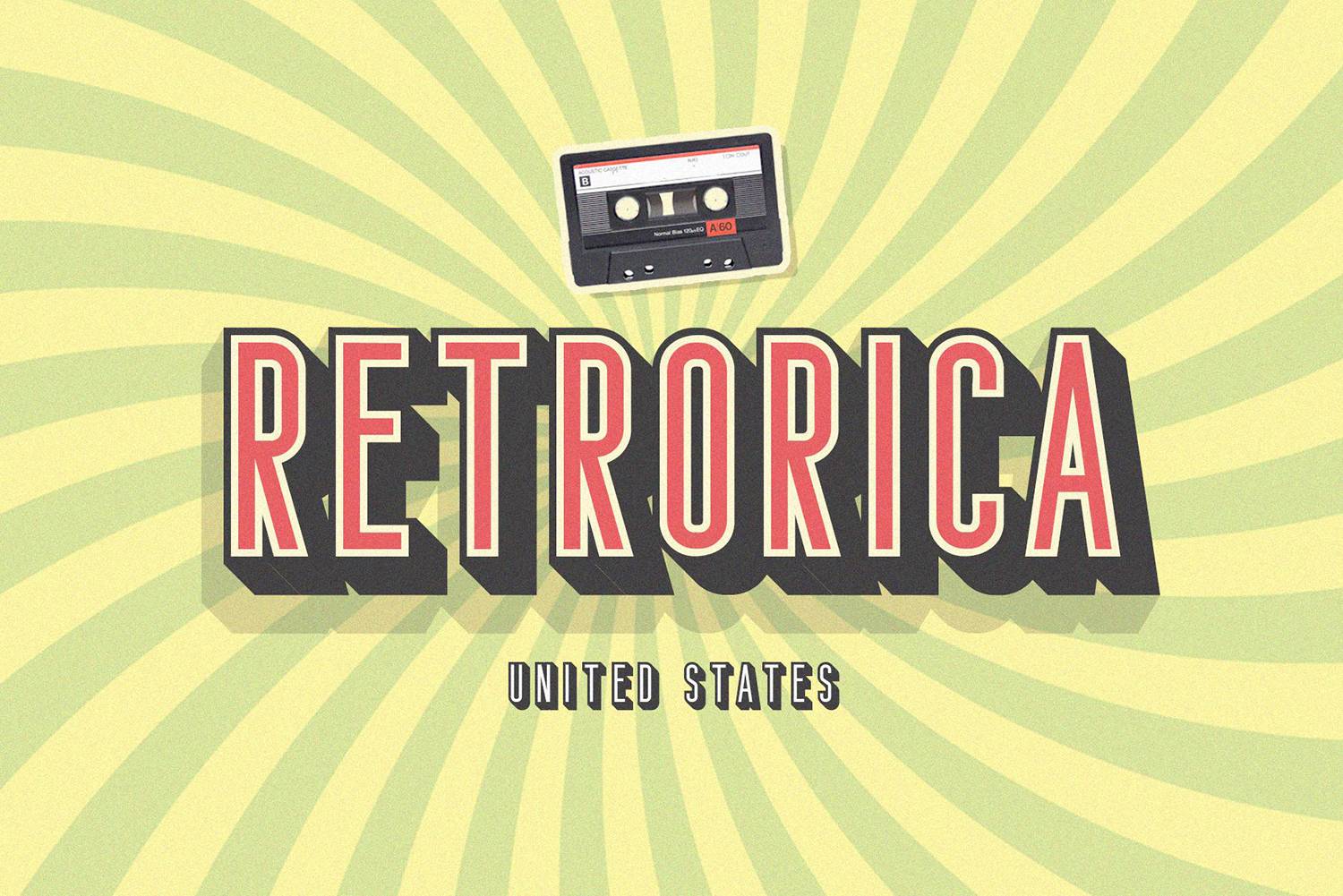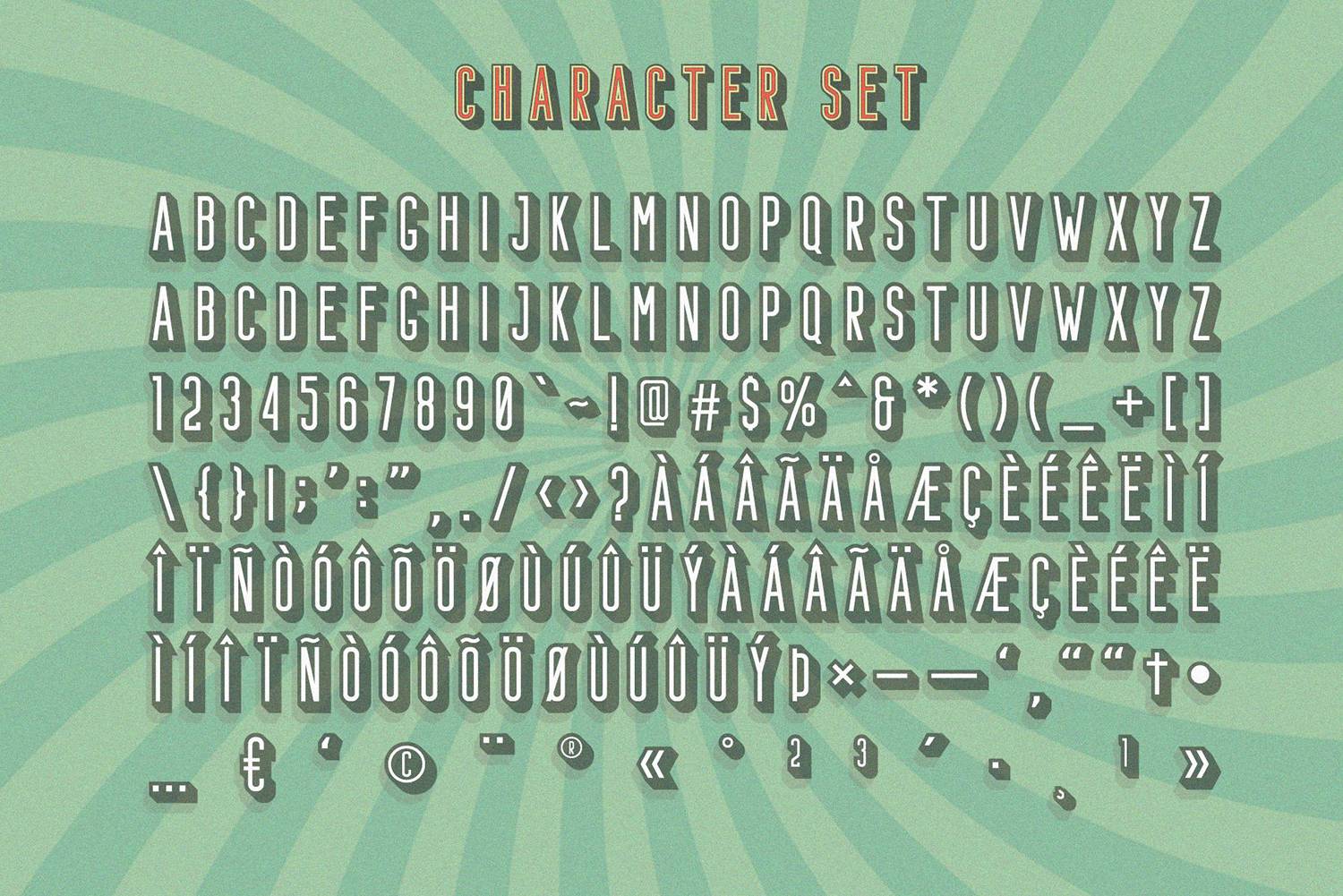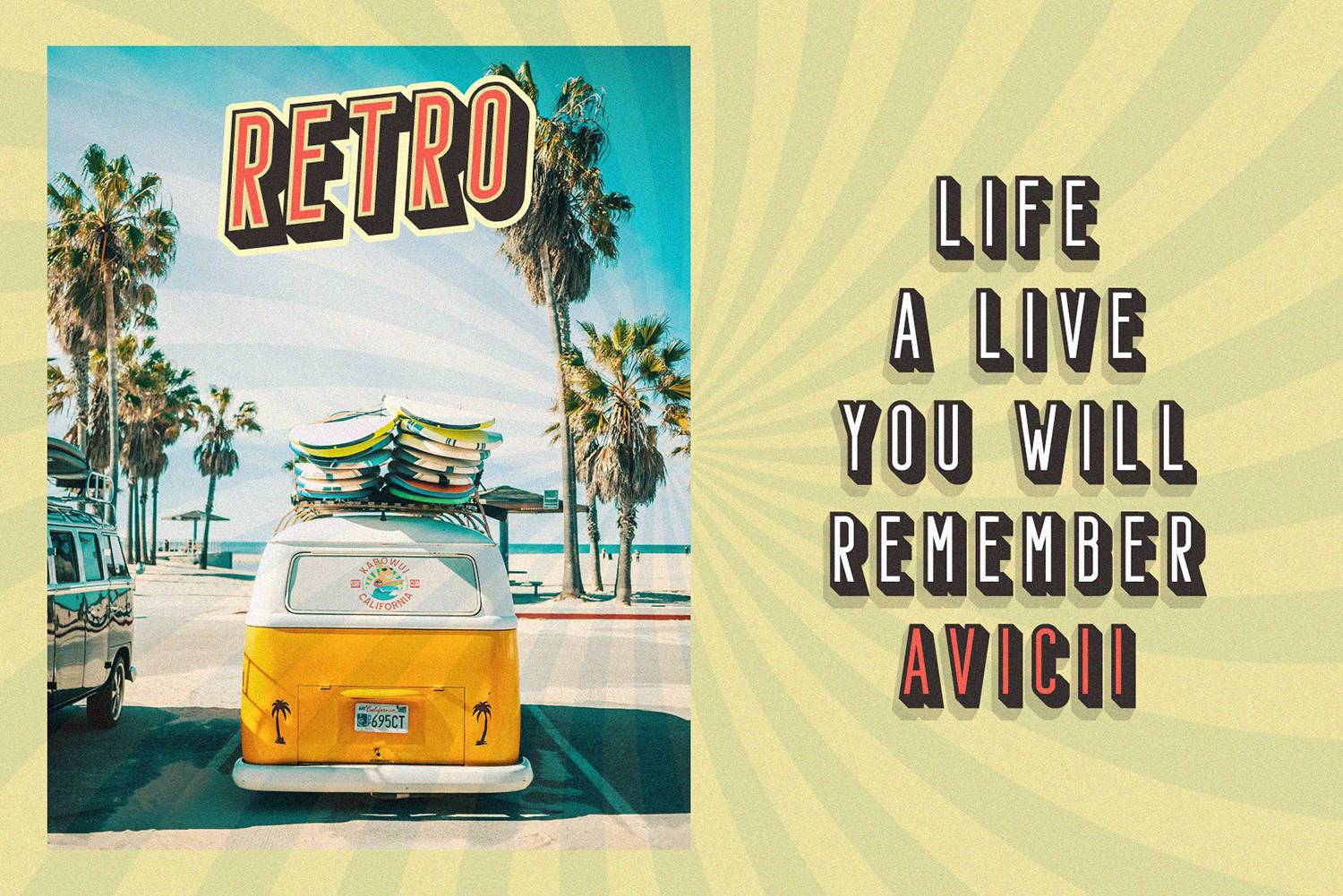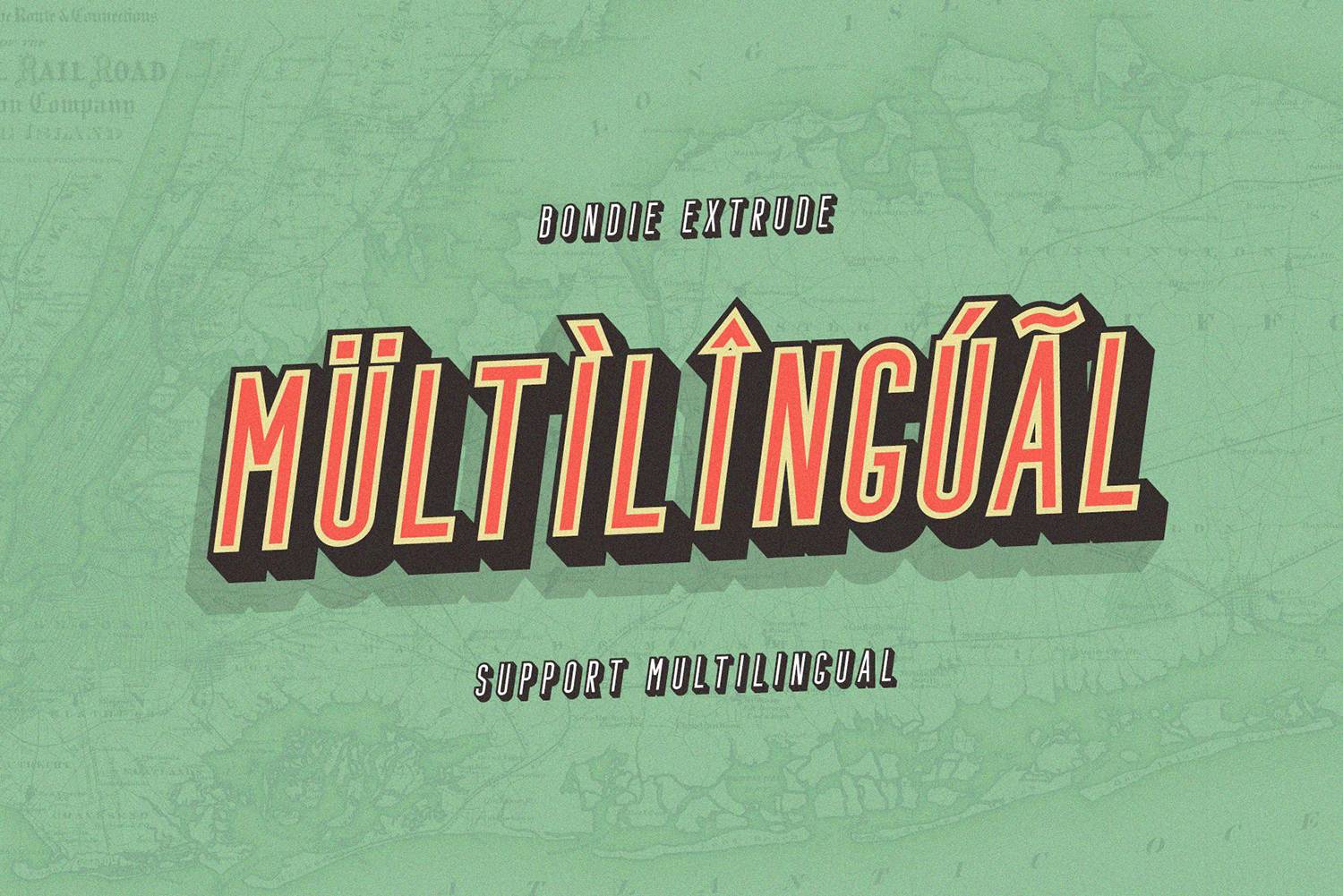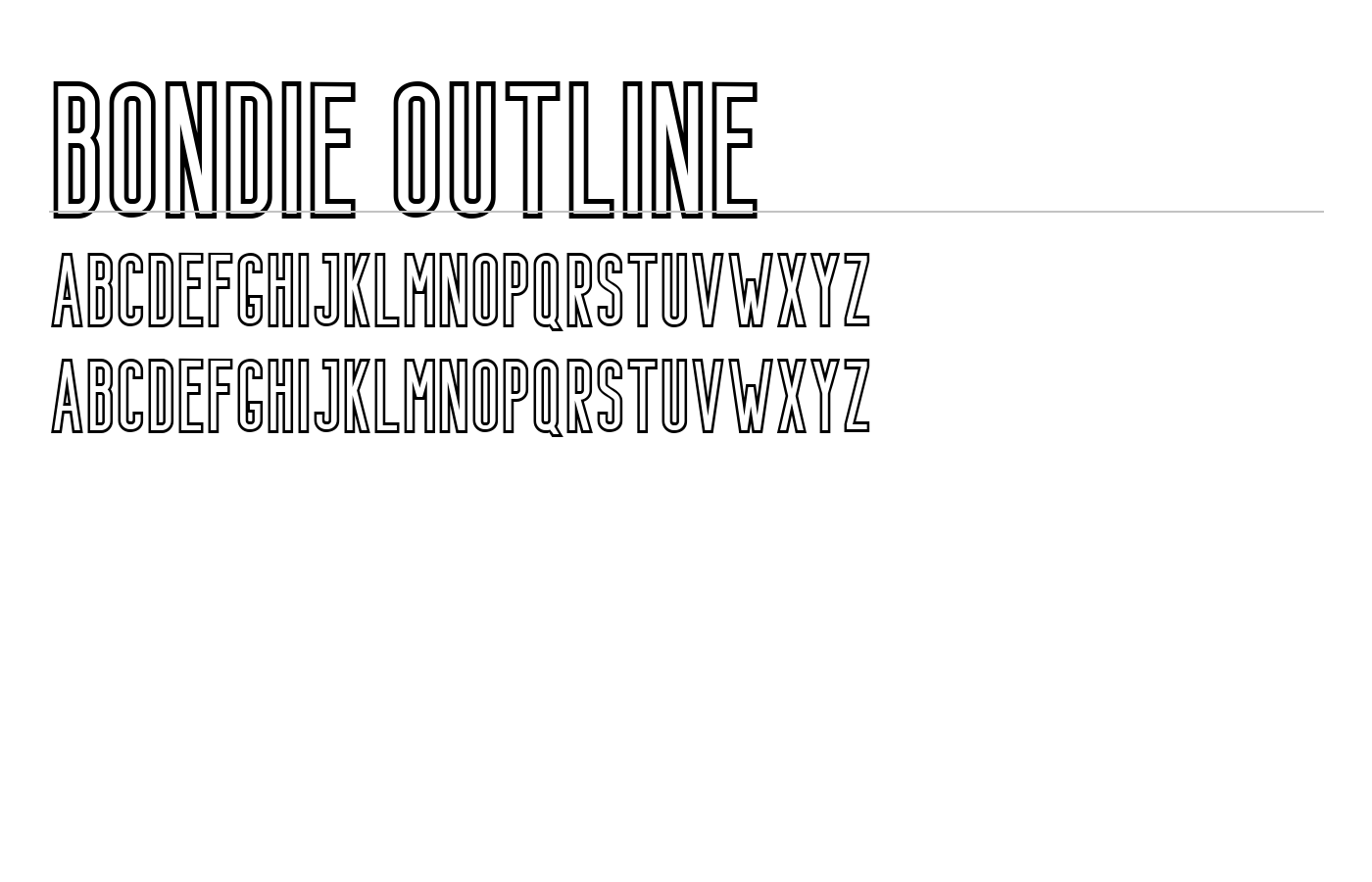
Bondie Extrude is a tall, condensed sans serif outline font that showcases a modern, geometric style with clean, sharp edges and consistent stroke width. Its all-caps structure and slim, elongated letterforms give it a bold, impactful presence perfect for eye-catching headlines, logos, and display use where a contemporary and architectural feel is desired. This font works well in branding and editorial design that seeks a sleek, urban, and stylish look.
Bondie Extrude Font Family
About Bondie Extrude Font Family